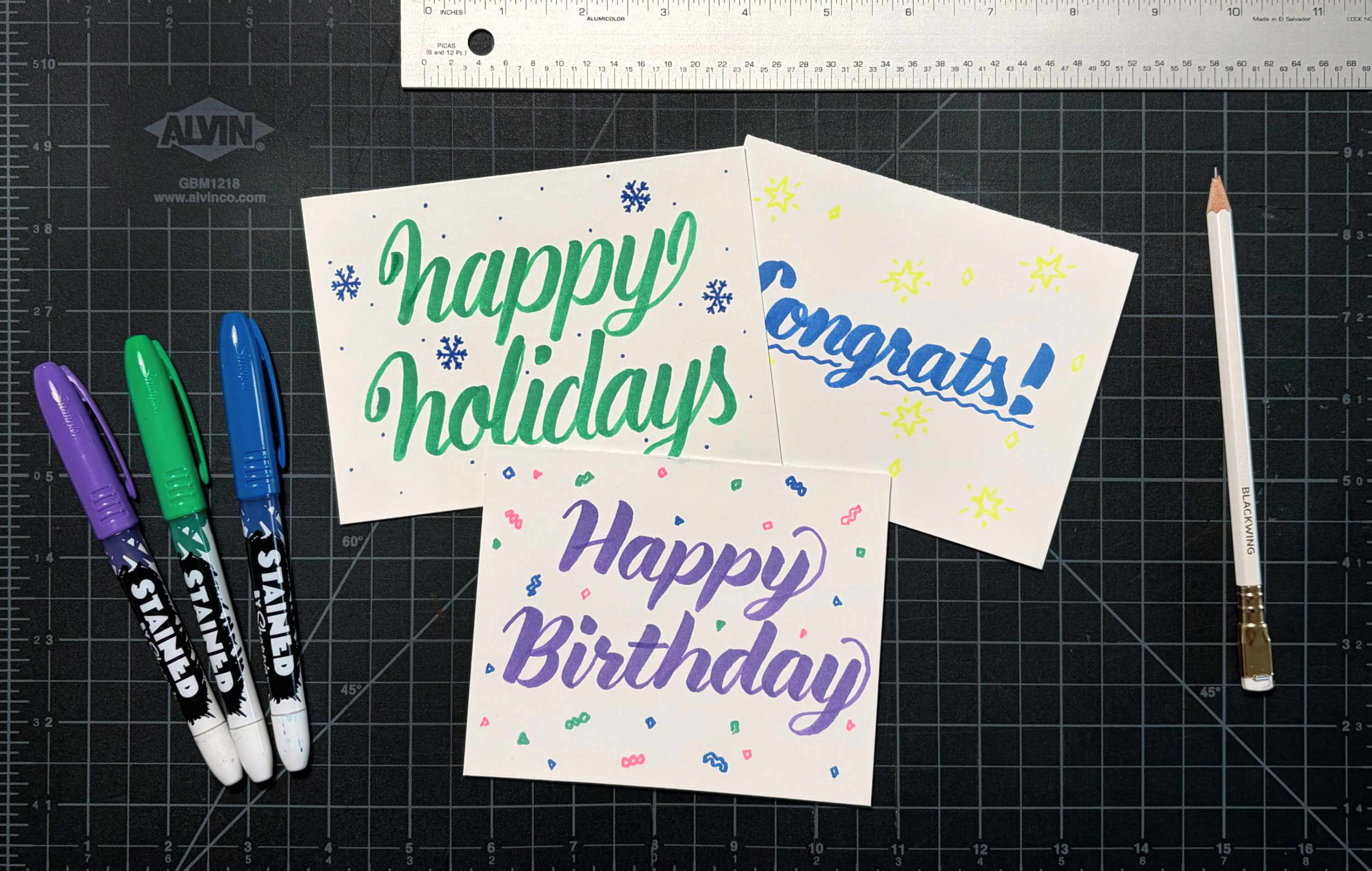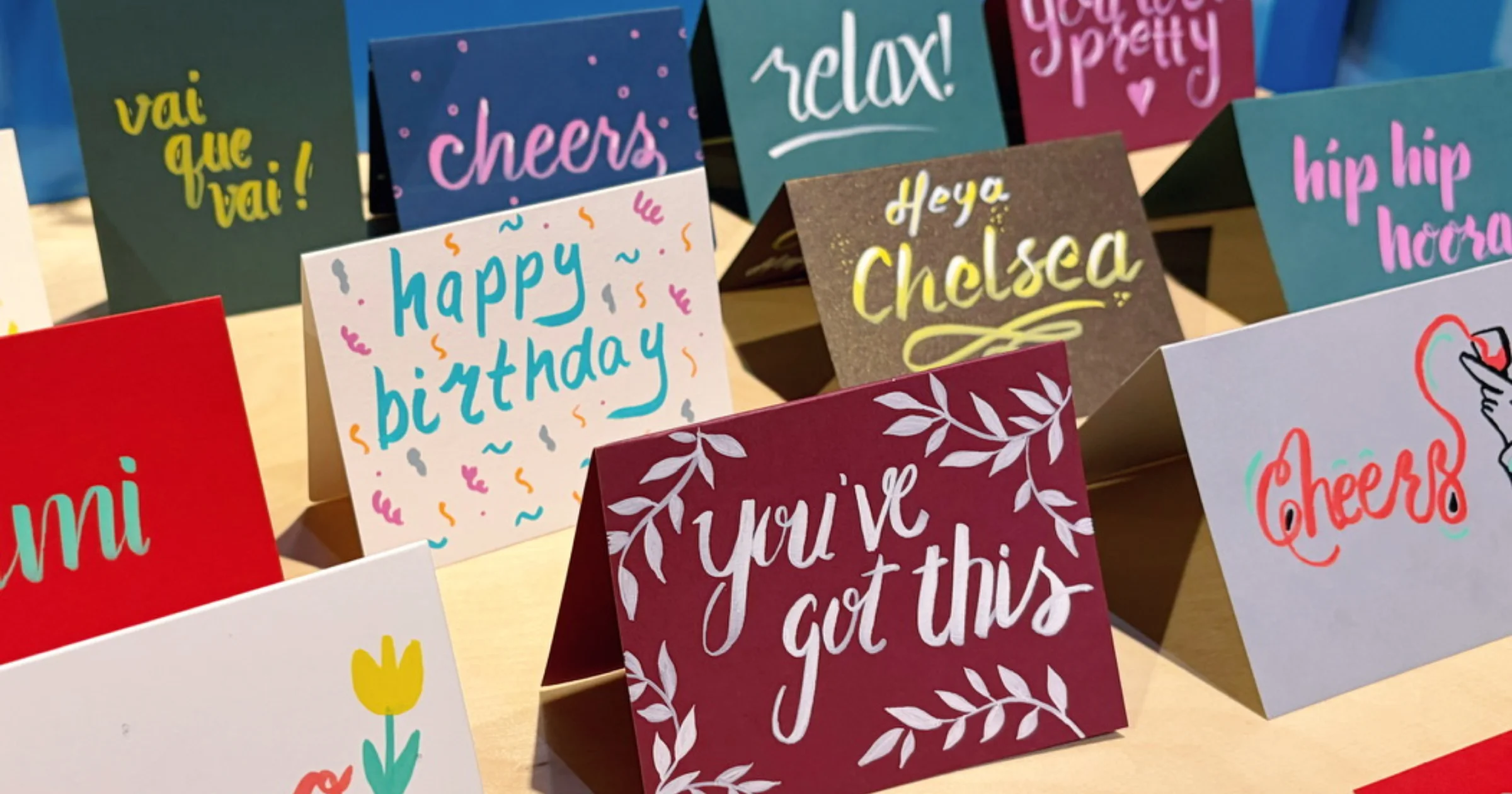
Brush Pen Greeting Cards
Learn how to create greeting cards with brush pen calligraphy! We’ll go through the basics of the different types of stokes and how to form each letter of the alphabet. Then, we’ll work on creating a greeting card with a word or short phrase that you can send to a friend who deserves a hand-crafted card.
Brush pen calligraphy is a fun way to write expressively, and with just a little practice, you can make beautiful greeting cards with a personal touch. In this workshop, we will begin with the basics of different types of strokes and how to form each letter of the alphabet. Then we will create a personalized greeting card using the skills we just learned.
This workshop can be themed for a time of year or particular event, for example making holiday cards during the winter holidays, or Valentine’s cards near Valentine’s day.